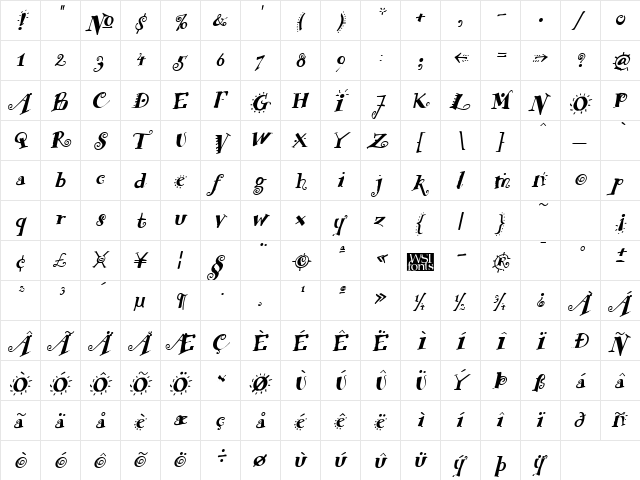
Funstuff Bold Italic
Design Context for Funstuff Typeface
Funstuff has an approachable, lighthearted character — its loose, expressive forms are well-suited to children's content, casual branding, and fun-first design. The slanted form adds forward momentum and visual energy.
Well-suited to food and beverage brands with personality, educational materials, and fun-forward identities.
Font Pairing: Pairs well with a rounded or humanist sans for body copy, maintaining the friendly tone without relying on Funstuff to carry extended reading.
Pro Tip: Use Funstuff at larger display sizes where its expressive character can land. Pair with a clean, simple sans for body copy to maintain readability.